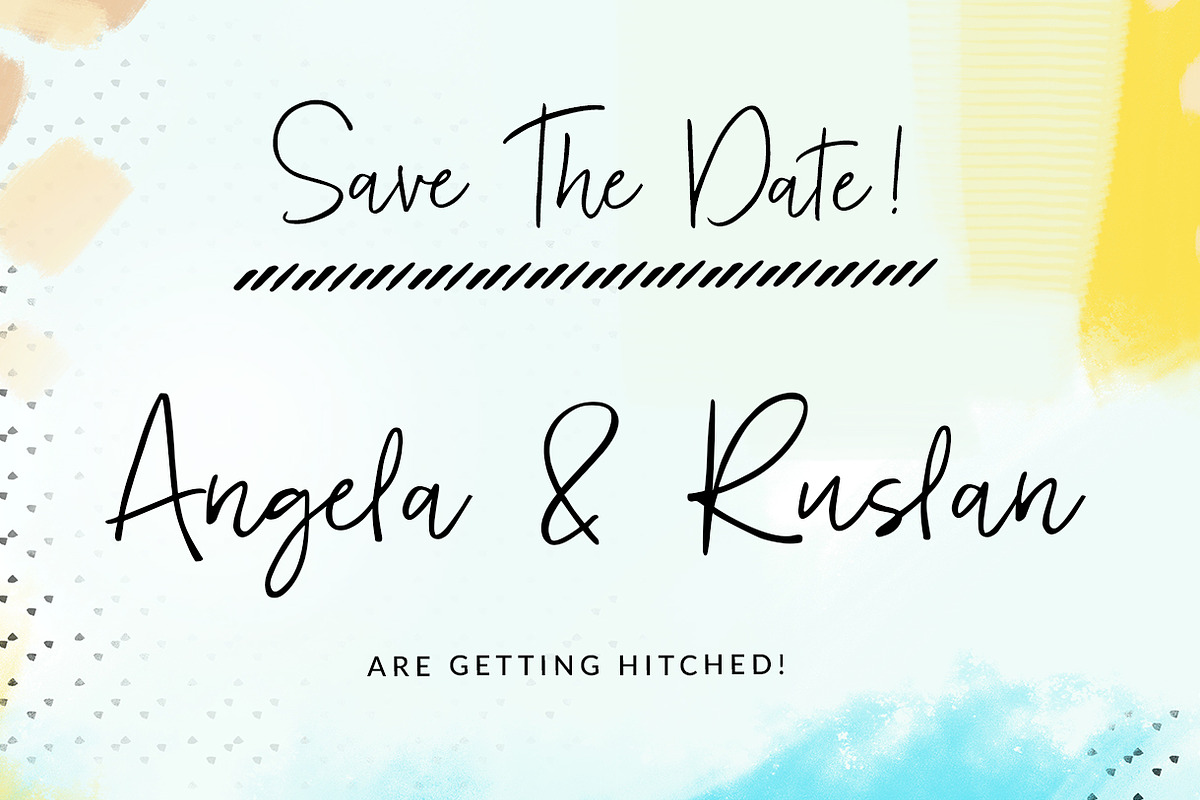
Foxglow Font
Foxglow Font by Angie Makes is a font selected for branding, posters, packaging, typography.
- Opentype features include contextual alternates for double letters and unique pairs (bb, cc, ll, tt, th, etc) Foxglow would be a perfect fit
Why Foxglow Font is worth a look
Foxglow Font by Angie Makes fits naturally into Branding, posters, packaging, typography.